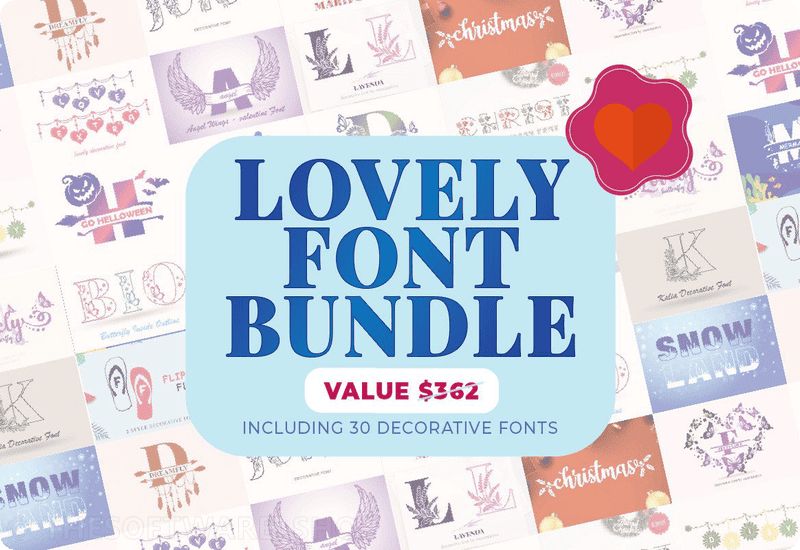
Imagine having 30 crayons, but instead of colors, each crayon is a magical way to write or decorate. That’s what Lovely Font Bundle Vol.02 gives you! It’s like getting a giant treasure chest of shiny, sparkly fonts worth $362—except now, they’re free. Yes, FREE! Sounds like a treat, doesn’t it?
Why Fonts Matter (Even to a Kid!)
Think about your favorite bedtime storybook. Would it be as fun if the words looked plain and boring? Nope! Fonts are like costumes for words—they make letters look exciting, fun, or even magical.
For example:
- “HAPPY BIRTHDAY!” written in bubble letters feels like a party.
- “Happy Birthday” written in plain letters feels… meh.
See the difference? That’s the magic of fonts!
Meet the Fonts: Your New Best Friends
Now, let’s take a peek at the stars of this bundle. Each font is like a character in a fairytale—unique, playful, and ready to make your designs sparkle.
1. Cupid Love Decorative Font
This one is perfect for Valentine’s cards. Think hearts, pinks, and all things lovey-dovey.
2. Snowflake Monogram Decorative Font
Want your words to look like snowflakes? This is your go-to font for winter vibes.
3. Lovely Butterfly Decorative Font
Butterflies and letters come together in this dreamy font. Perfect for spring projects!
And there are 27 more! From Christmas to Halloween, you’ll have a font for every occasion:
- Little Mermaid Monogram Decorative Font
- My Space Decorative Font
- Snowflake Monogram Decorative Font
- Delightful Butterfly Fuentes Decorativas
- Angel Wings Decorative Font
- Monogram Christmas Decorative Font
- Lavenda Decoratieve Fonts
- Snowland Display Font
- Snowflakes String Decorative Font
- Big Paw Decorative Font
- Lovely Valentine Decorative Font
- Monogram Helloween Decorative Font
- Dream Fly Decorative Font
- Joicy Decorative Font
- Mariposa Decorative Font
- Love Link Extra Decorative Font
- Christmas Holly Decorative Font
- Go Helloween Decorative Font
- Daisy Garden Fontes Decorative Fonte
- Flip Flop Decorative Font
- Daisy Link Decoratieve Fonts
- Christmas Joy Decorative Font
- Fly in Love Decorative Font
- Cute Wing Monogram Decorative Font
- Lightball String Decorative Font
- Kalia Monogram Fuentes Decorativas
- Rayasa Decorative Font
How Can You Use These Fonts?
Fonts offer endless possibilities for creativity and expression across various projects. Let’s explore how different groups can utilize these versatile fonts to elevate their work:
For Designers
Are you a designer? These fonts can turn your boring project into something that makes people say, “Wow!” Imagine creating a poster with Angel Wings or designing a wedding invite with Lavenda. Sounds fancy, right?
For Kids Learning Projects
Kids can use these fonts to make their school projects amazing. Who wouldn’t want their science poster to stand out with a font like Dream Fly?
For DIY Crafters
Love making things at home? Write a card for your best friend with Daisy Garden or craft a cute wall sign using Lightball String.